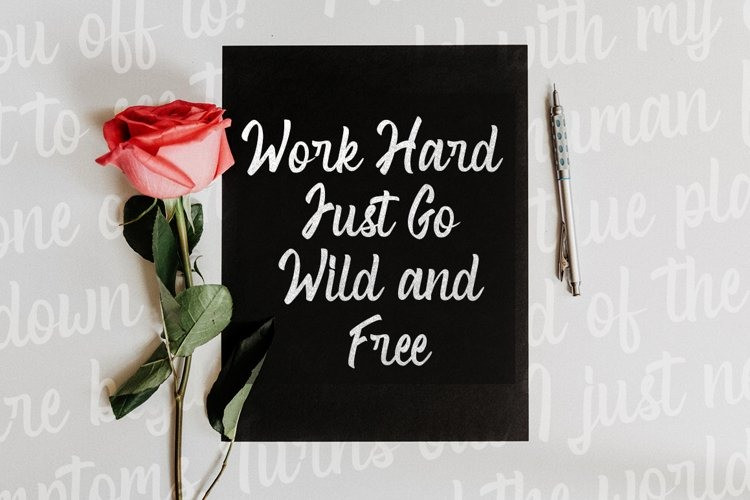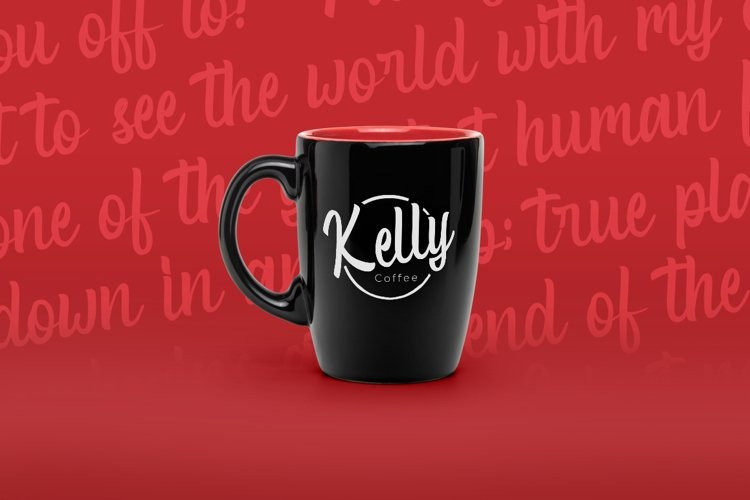
Rocky Run Font
Rocky Run Script Font
This is a bold script typeface created by Ibeydesign with noble and vintage looks. This font is to use for any kind of design such as branding projects, logo, brochures, business card, wedding designs, social media posts, advertisements, product packaging, product designs, label, photography, watermark, invitation, brand company, stationery and any projects that need handwriting taste.